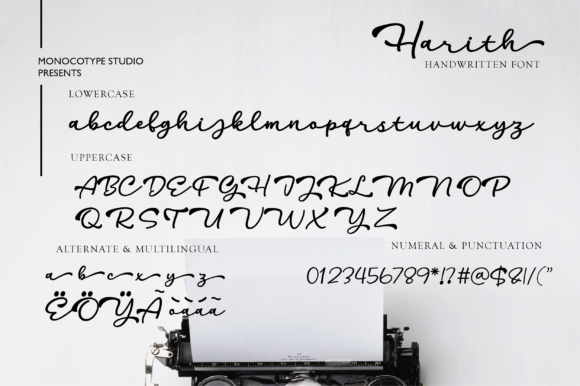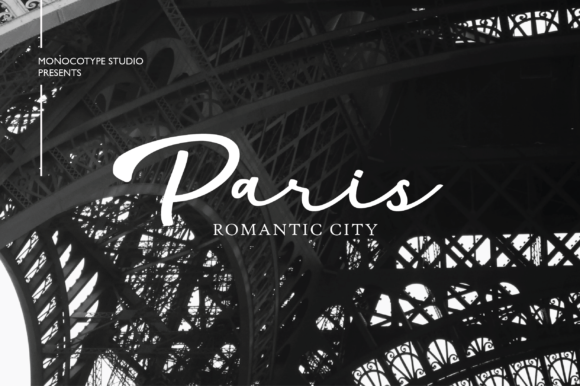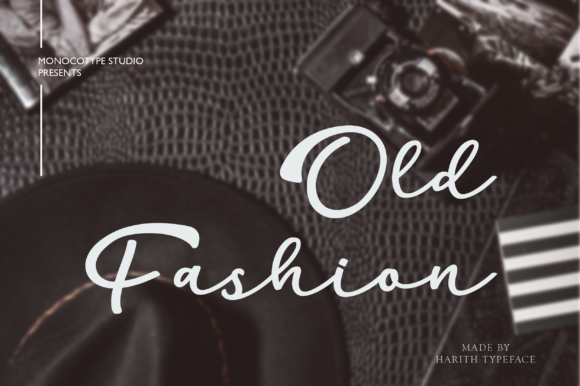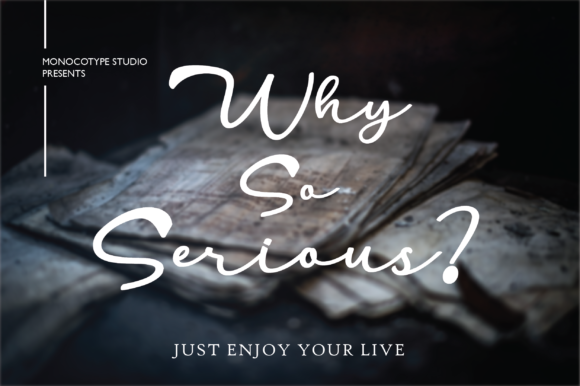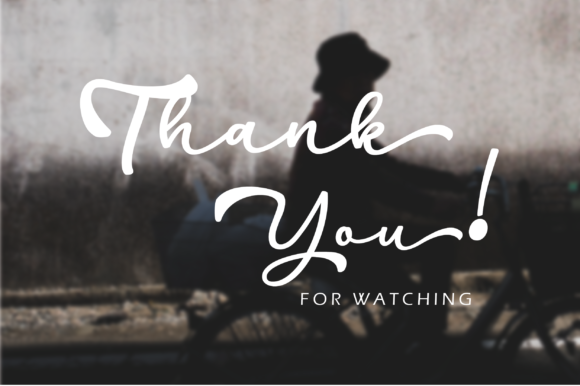
Harith Script Font
About Harith Script Font
Harith is a beautiful and bold handwritten font with unique characters. Get inspired by its authentic and contemporary appeal.